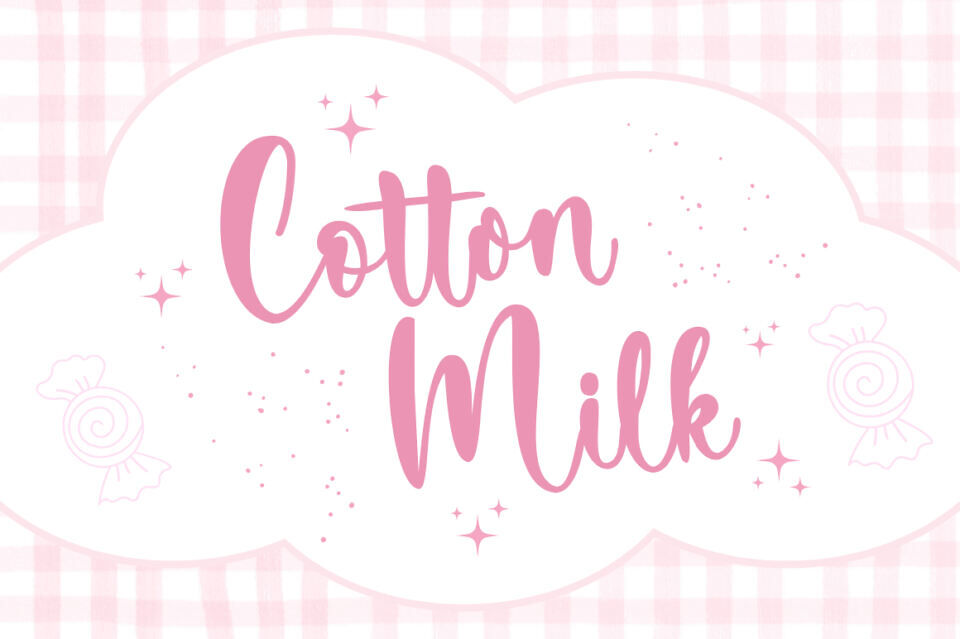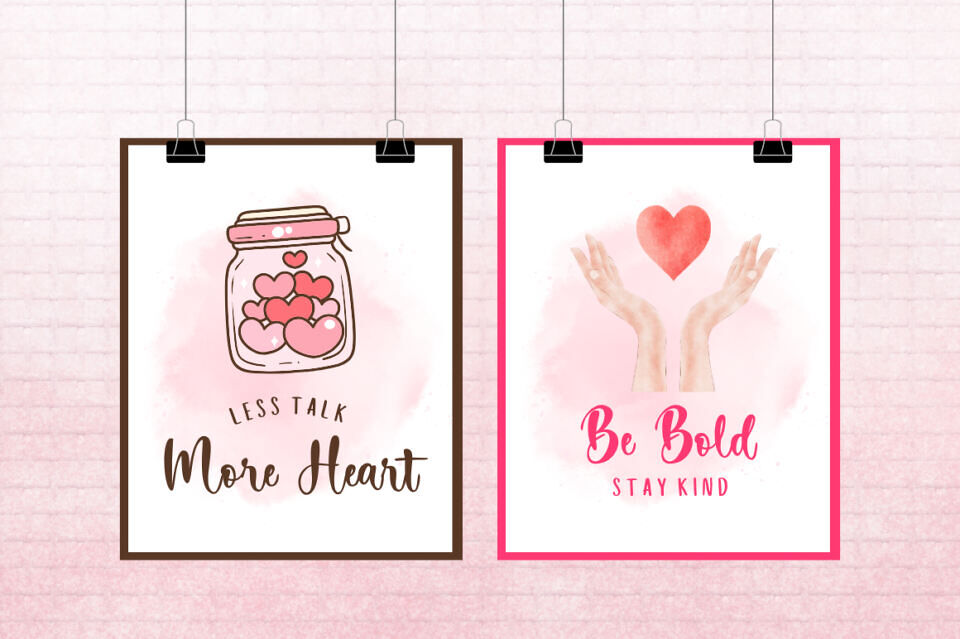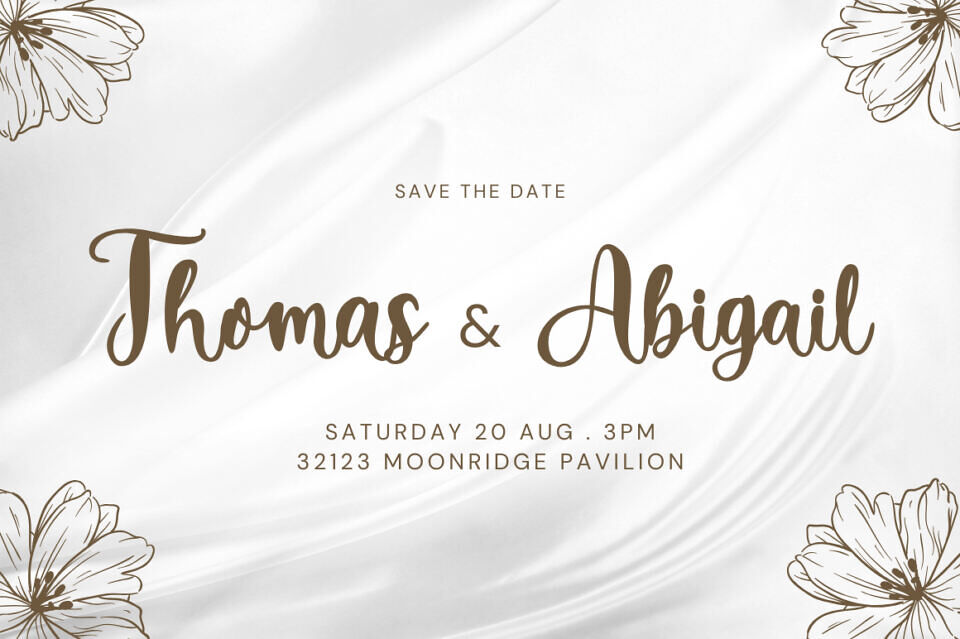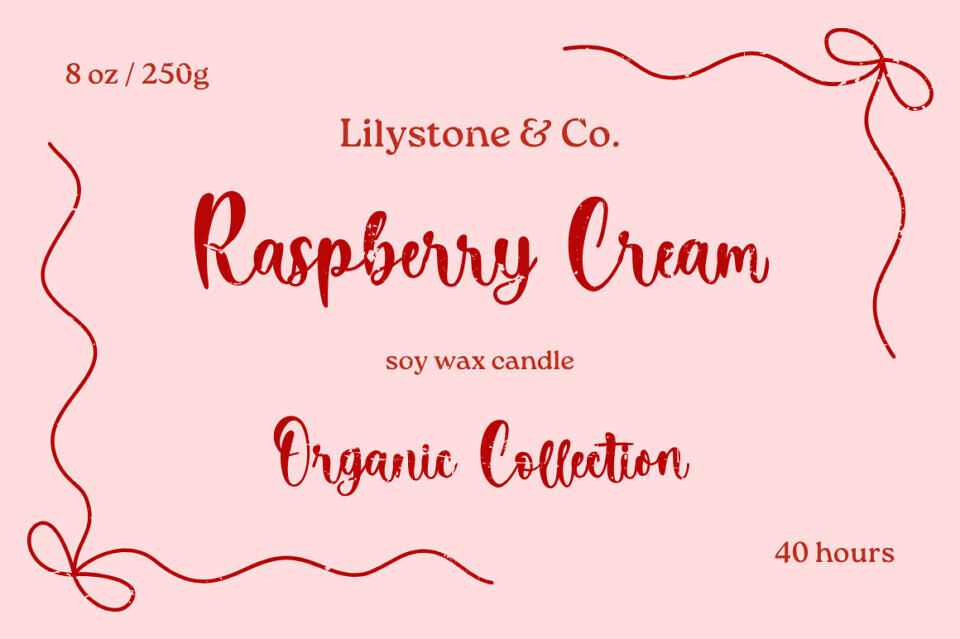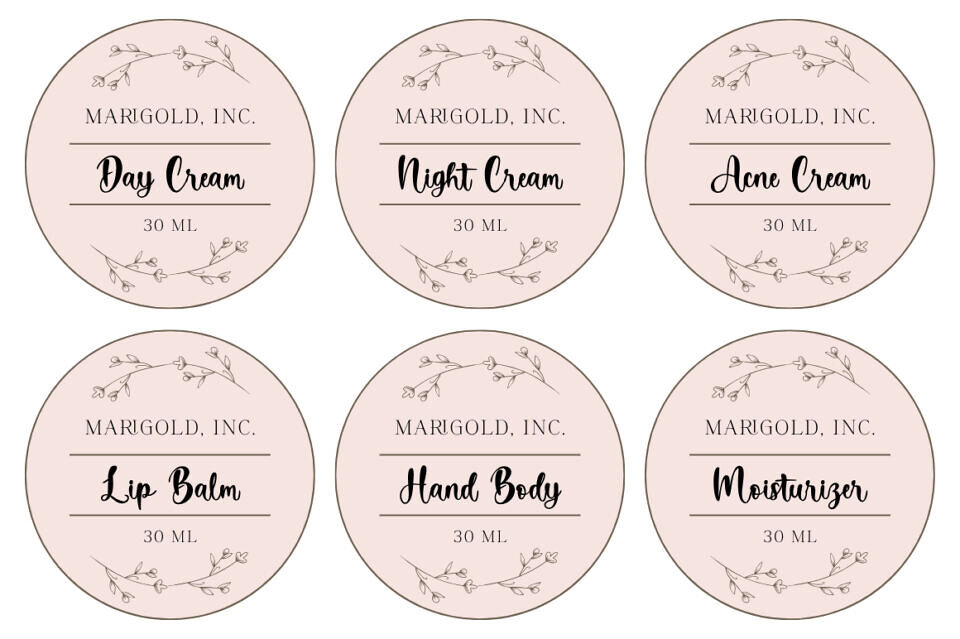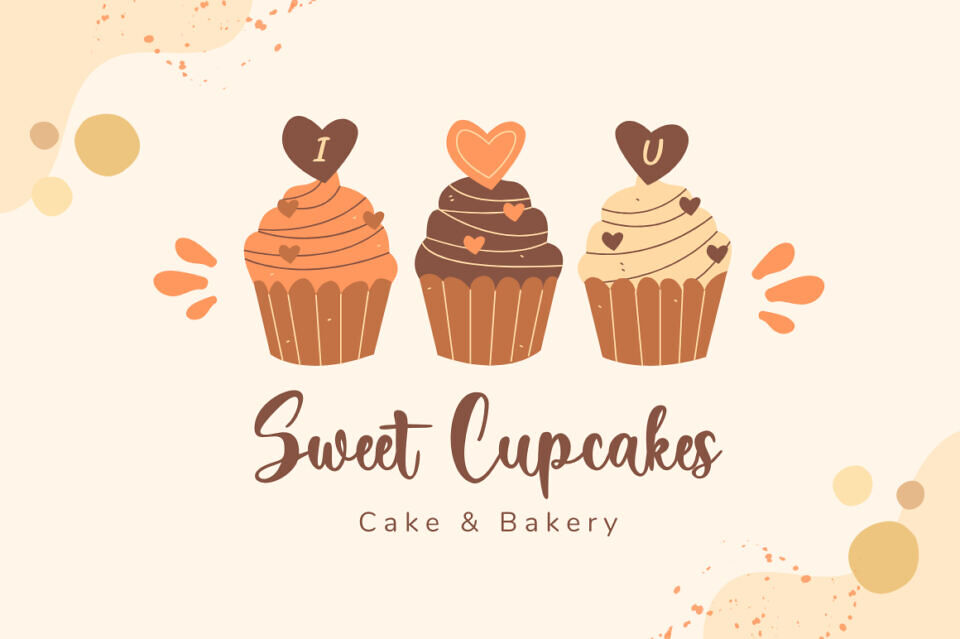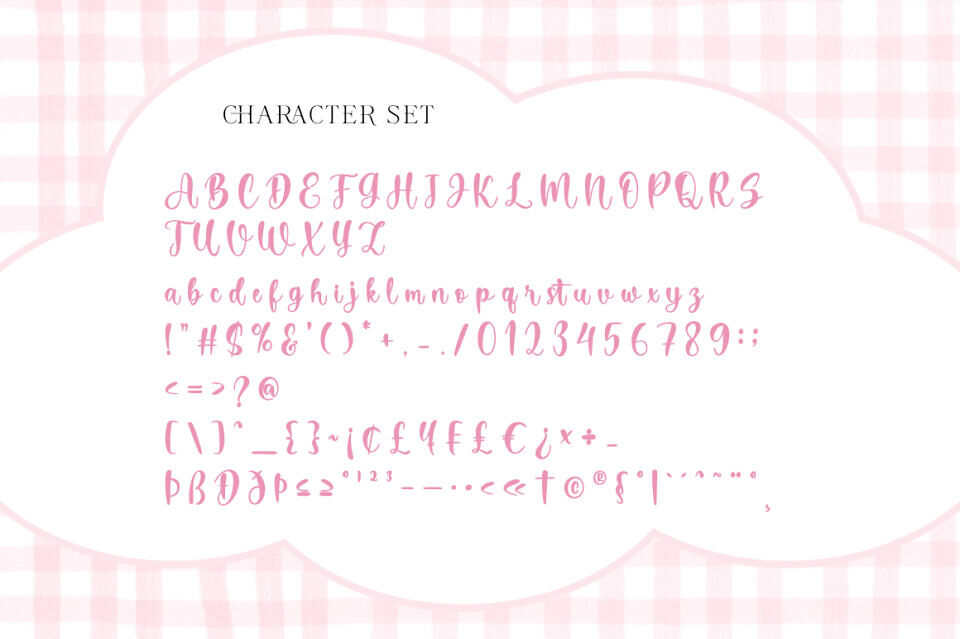
Cotton Milk Font
Cotton Milk is a smooth and charming script font that radiates warmth and elegance. With its soft curves and flowing strokes, this font is perfect for branding, packaging, wedding invitations, and heartfelt quotes. Cotton Milk brings a handcrafted feel that adds a gentle, personal touch to any creative project.